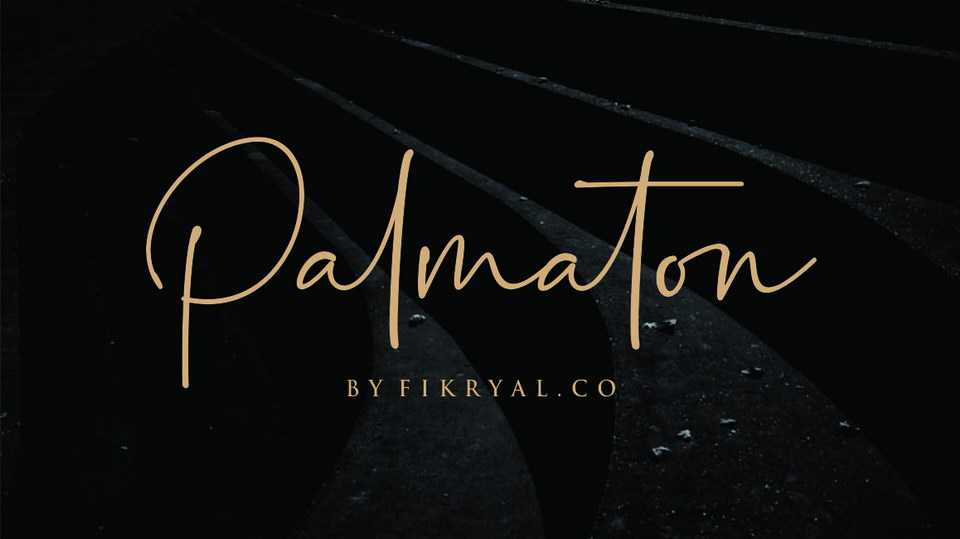
Download Palmaton font, a modern and stylish handwritten script. Palmaton script is perfect for logo, branding, invitation, tittle, wedding designs, social media posts and more.
Designer: Fikry Alif